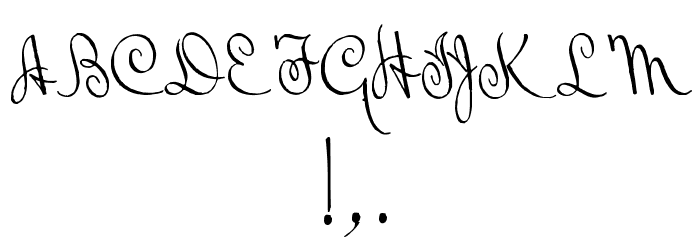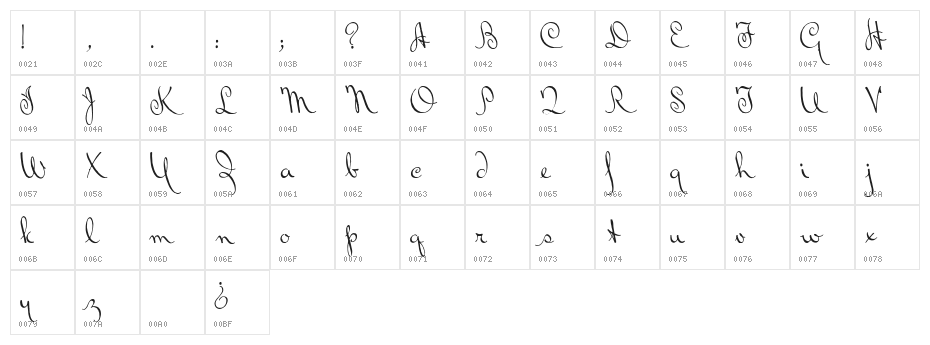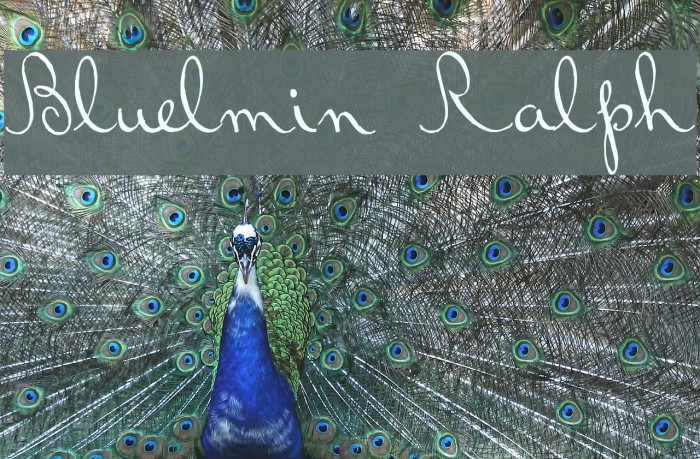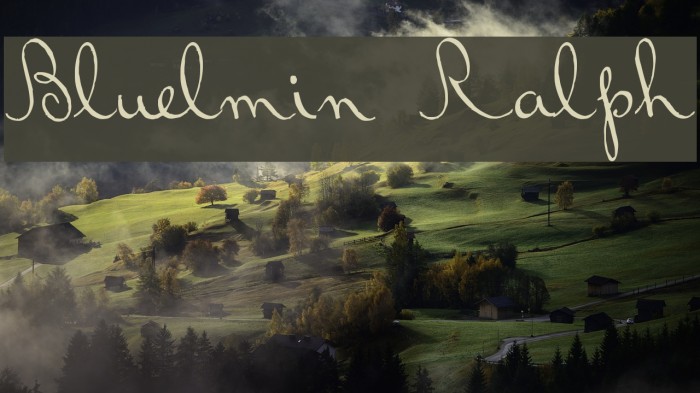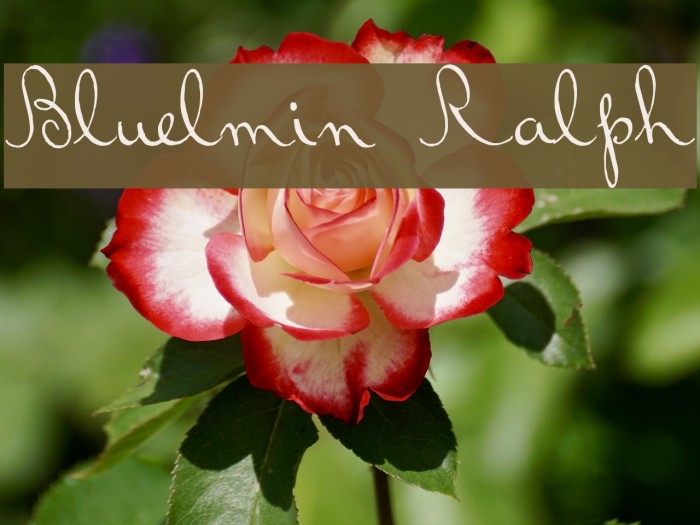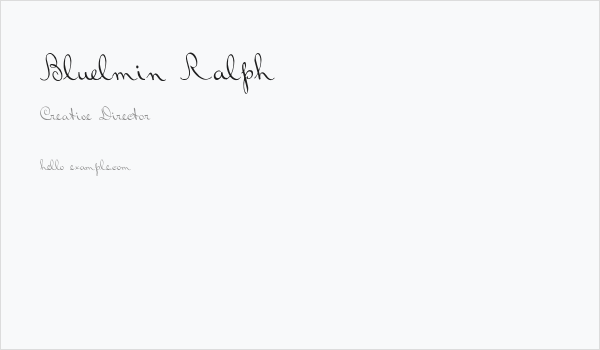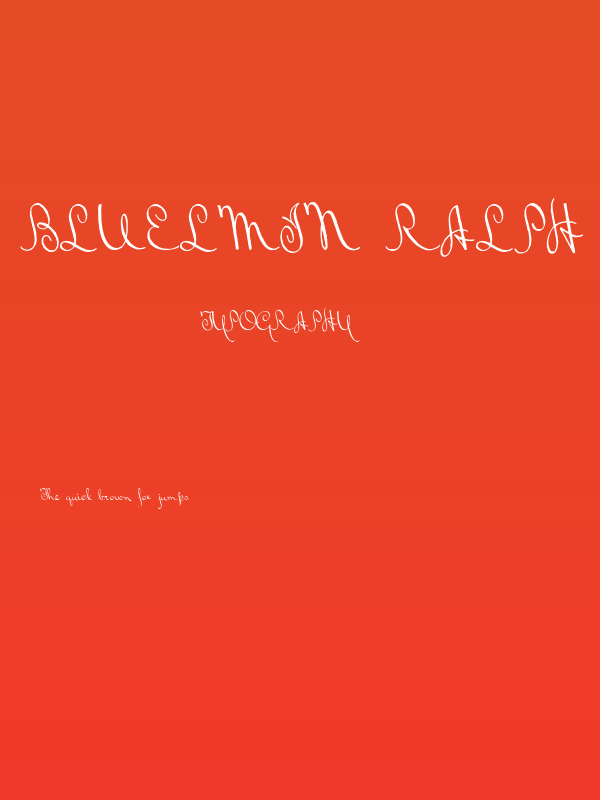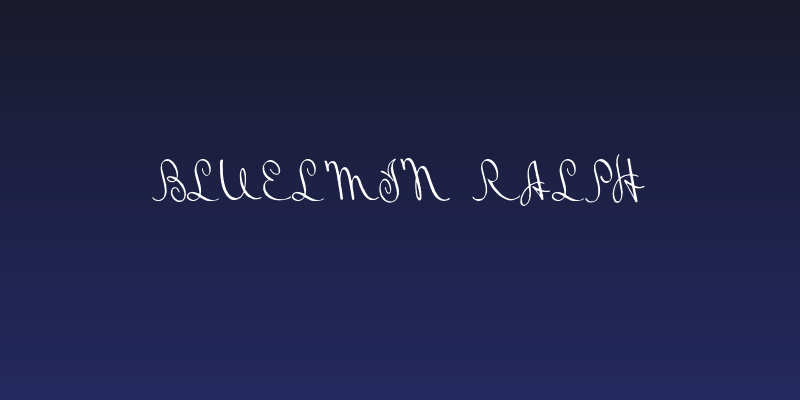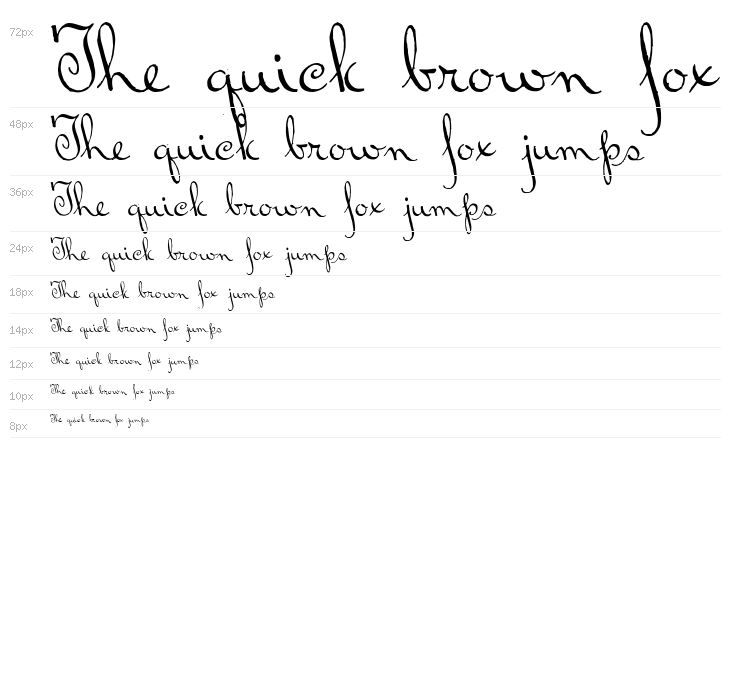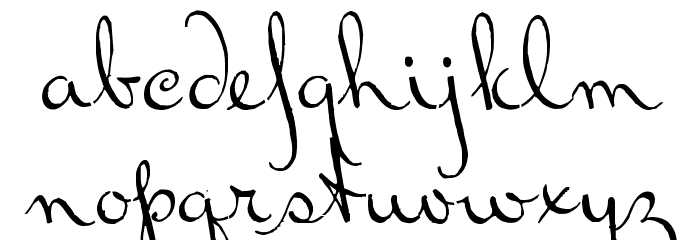
Bluelmin Ralph Font
Bluelmin Ralph Description
This font exudes an elegant and artistic flair, characterized by its flowing, cursive style. The letters are intricately designed with loops and swirls, giving it a whimsical and decorative appearance. The uppercase letters are particularly ornate, with exaggerated curves and flourishes that add a sense of drama and sophistication. The lowercase letters maintain a consistent style, though they are slightly more subdued, allowing for readability while still retaining the font's unique charm. The numbers and special characters are crafted with the same attention to detail, ensuring a cohesive look across all elements. This font is perfect for projects that require a touch of elegance and creativity.
| Proposed Projects | Ideal for wedding invitations, greeting cards, and artistic branding. |